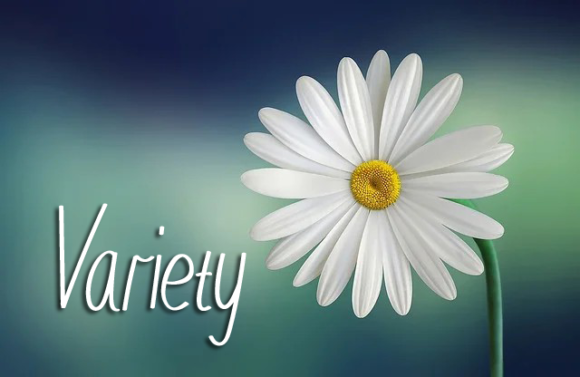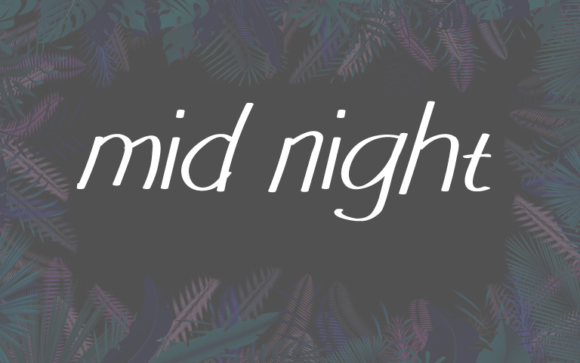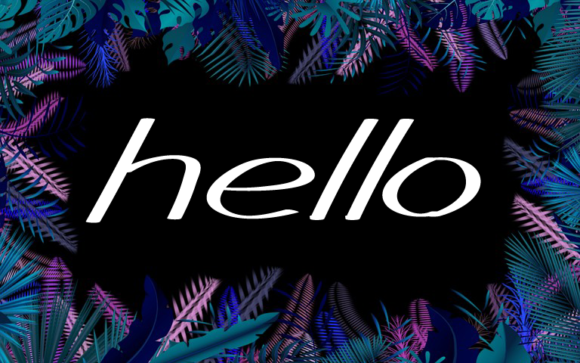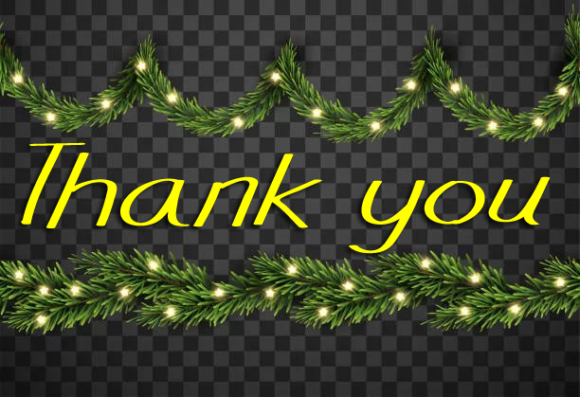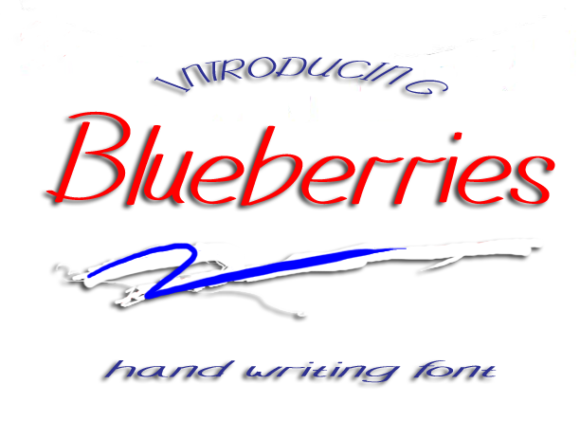
Introducing Blueberries Font: The Perfect Addition to Your Design Arsenal
Are you a designer, crafter, or educator looking for a font that can add a personal touch to your work? Look no further than Blueberries Font, a cute and simple lettered handwritten font that’s perfect for chalkboard quotes, teaching materials, and more. In this article, we’ll dive into the features and benefits of Blueberries Font, and explore how it can elevate your designs to the next level.
What is Blueberries Font?
Blueberries Font is a beautifully crafted handwritten font that’s designed to mimic the look of chalkboard writing. Its authentic, cursive script is perfect for creating eye-catching quotes, posters, and educational materials that require a personal touch. The font’s simplicity and elegance make it versatile enough to be used in a variety of design projects, from DIY crafts to commercial branding.
Key Features of Blueberries Font
- Cute and Simple Design: Blueberries Font boasts a charming, hand-drawn design that’s both playful and sophisticated.
- Lettered Handwritten Style: The font’s handwritten style gives it a warm, personal feel that’s perfect for creating emotional connections with your audience.
- Chalkboard-Inspired: The font’s chalkboard-inspired look makes it ideal for creating quotes, posters, and other materials that require a rustic, authentic feel.
- Easy to Read: Despite its handwritten style, Blueberries Font is surprisingly easy to read, making it perfect for use in educational materials and other applications where legibility is key.
Benefits of Using Blueberries Font
So why should you choose Blueberries Font for your design projects? Here are just a few benefits of using this versatile font:
- Adds a Personal Touch: Blueberries Font’s handwritten style gives your designs a personal, human touch that can help you connect with your audience.
- Versatile: The font’s simplicity and elegance make it suitable for use in a wide range of design projects, from DIY crafts to commercial branding.
- Unique Look: The font’s chalkboard-inspired look sets it apart from more traditional fonts, giving your designs a unique and eye-catching appearance.
How to Use Blueberries Font in Your Designs
Using Blueberries Font in your designs is easy. Here are a few tips to get you started:
- Pair with Other Fonts: Blueberries Font pairs well with other fonts, such as sans-serif fonts, to create visually interesting combinations.
- Use for Headings and Titles: The font’s bold, cursive script makes it perfect for use in headings and titles.
- Add to Your Website or Blog: Blueberries Font can add a personal touch to your website or blog, making it more engaging and relatable to your audience.
- Use in Educational Materials: The font’s chalkboard-inspired look makes it ideal for use in educational materials, such as worksheets, posters, and presentations.
Blueberries Font is a versatile and charming font that’s perfect for designers, crafters, and educators looking to add a personal touch to their work. Its authentic, chalkboard-inspired look and easy-to-read design make it suitable for use in a wide range of design projects. Whether you’re creating DIY crafts, commercial branding, or educational materials, Blueberries Font is sure to become a valuable addition to your design arsenal.